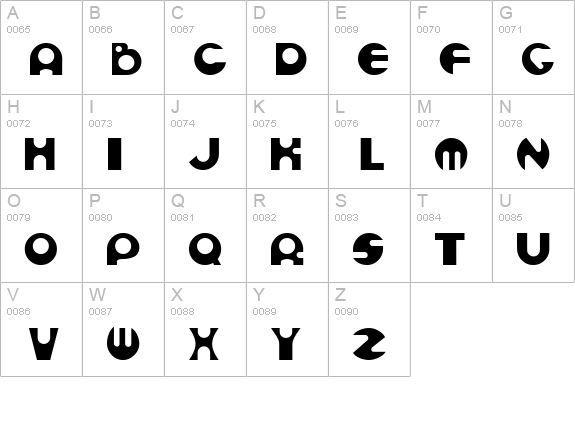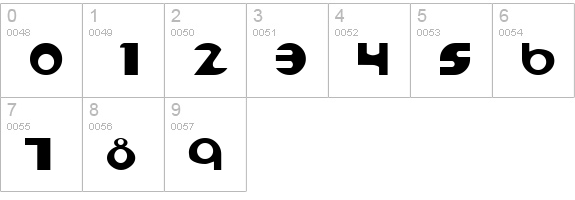
Espheres Regular Font Details
Espheres Regular is the standard, neutral variant in the Espheres typeface family \xE2\x80\x94 well suited to general body text, paragraphs, and standard typographic work.
Espheres Regular font is a modern and sleek typeface that exudes sophistication and elegance. With its clean lines and balanced proportions, this font is perfect for a wide range of design projects, from branding to editorial design. The versatility of Espheres Regular makes it a go-to choice for designers looking to elevate their work with a touch of class. What sets Espheres Regular apart is not just its aesthetic appeal, but also the fact that it is available for free. Yes, you read that right - this premium font can be downloaded at no cost from FontsMarket.com. This means that you can add a touch of luxury to your projects without breaking the bank. Whether you're working on a logo, website, or print design, Espheres Regular is sure to make a lasting impression. Its timeless design and effortless style will elevate your work to new heights. Download Espheres Regular today and see for yourself the impact it can have on your designs.